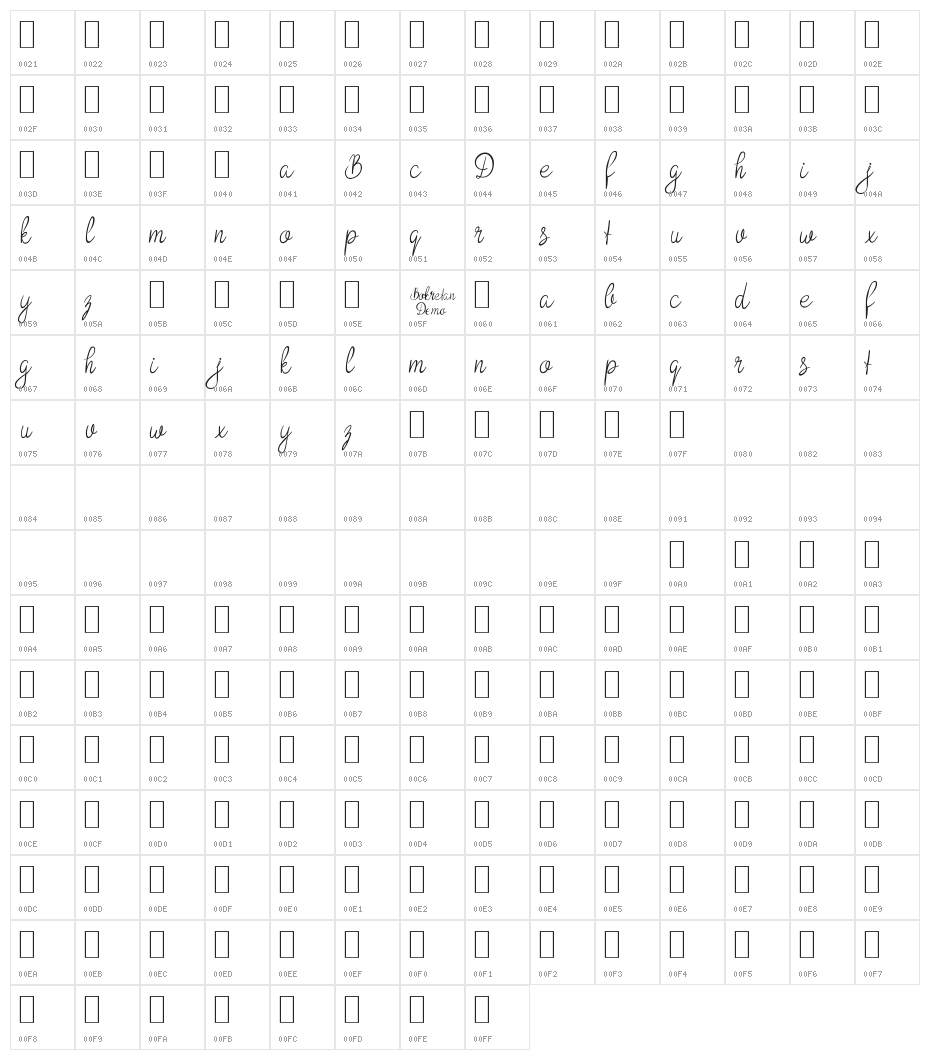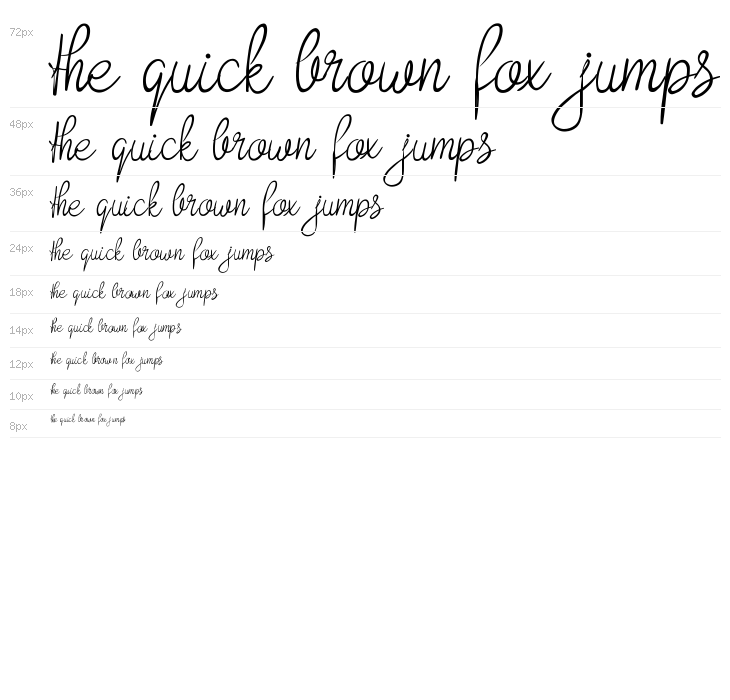
Bokretan Demo Font
Bokretan Demo Description
This font features an elegant, flowing script style that mimics the fluidity of natural handwriting. The characters are connected, creating a seamless and continuous look that is both sophisticated and approachable. The uppercase letters are distinct with graceful loops and curves, while the lowercase letters maintain a consistent rhythm and balance. The overall appearance is delicate yet legible, making it suitable for a variety of design applications. The font's style evokes a sense of personal touch and creativity, perfect for projects that require a handwritten aesthetic.
| Overall Style | Elegant, Handwritten |
| Proposed Projects | Ideal for wedding invitations, greeting cards, personal branding, and creative projects that require a touch of elegance and personality. |